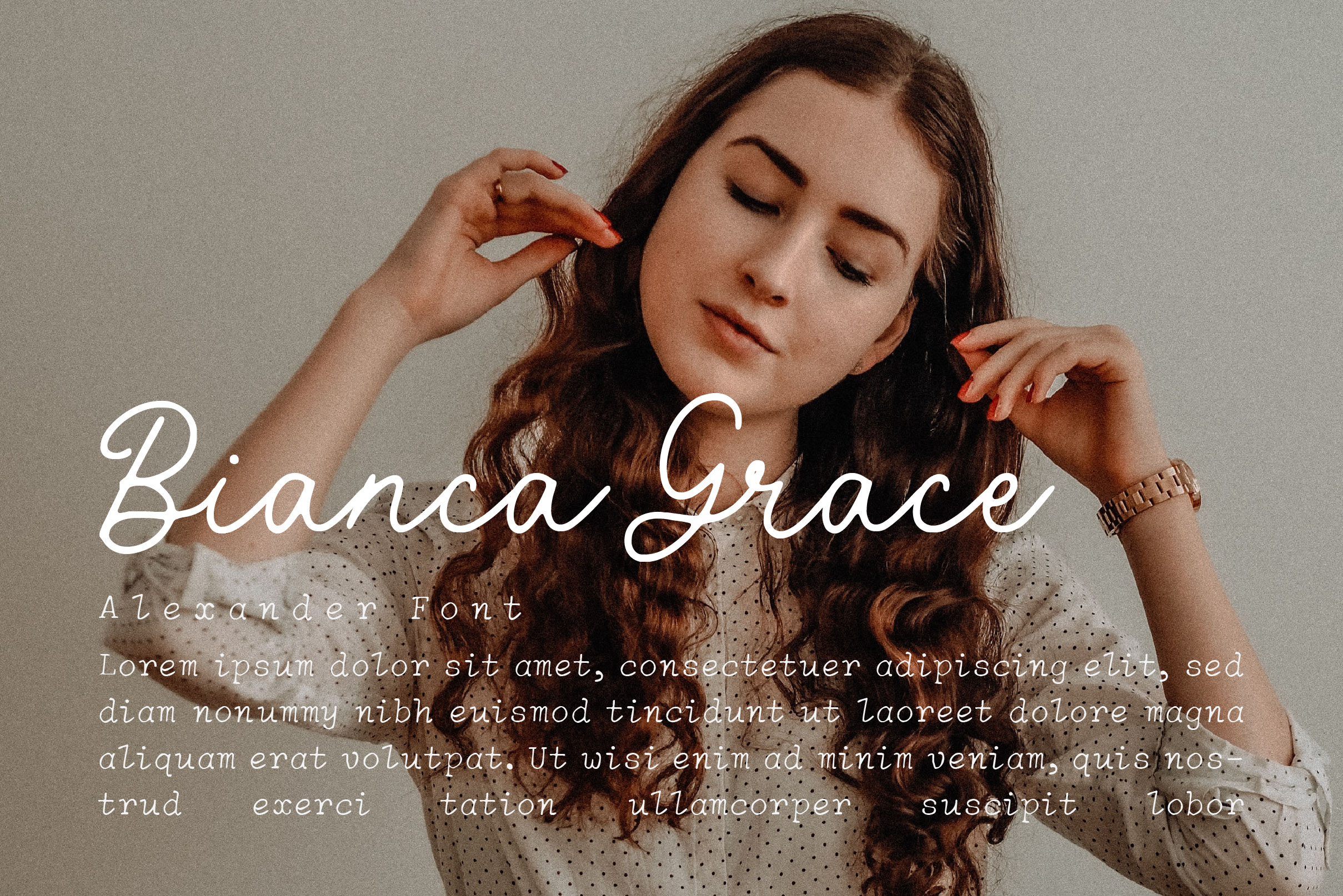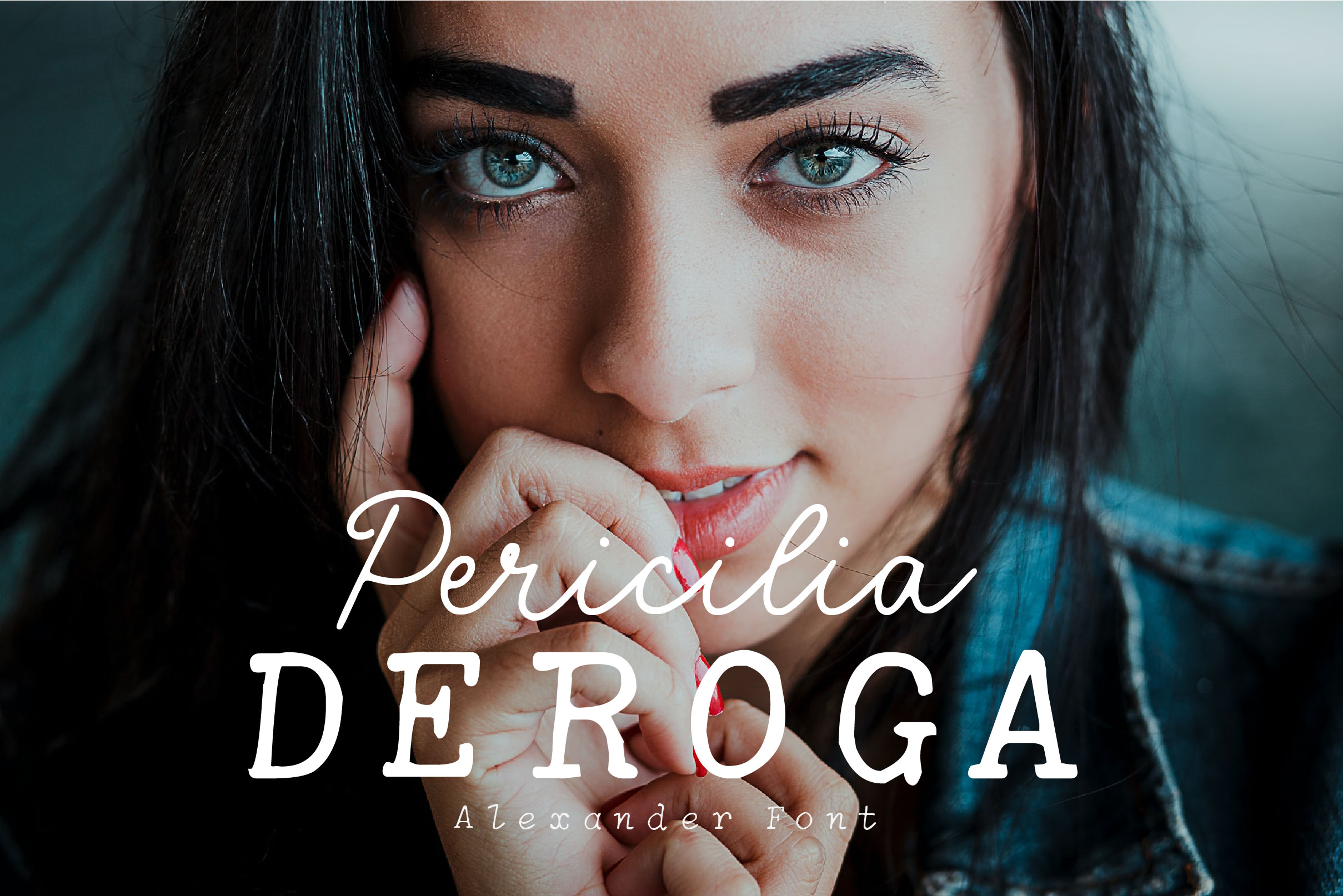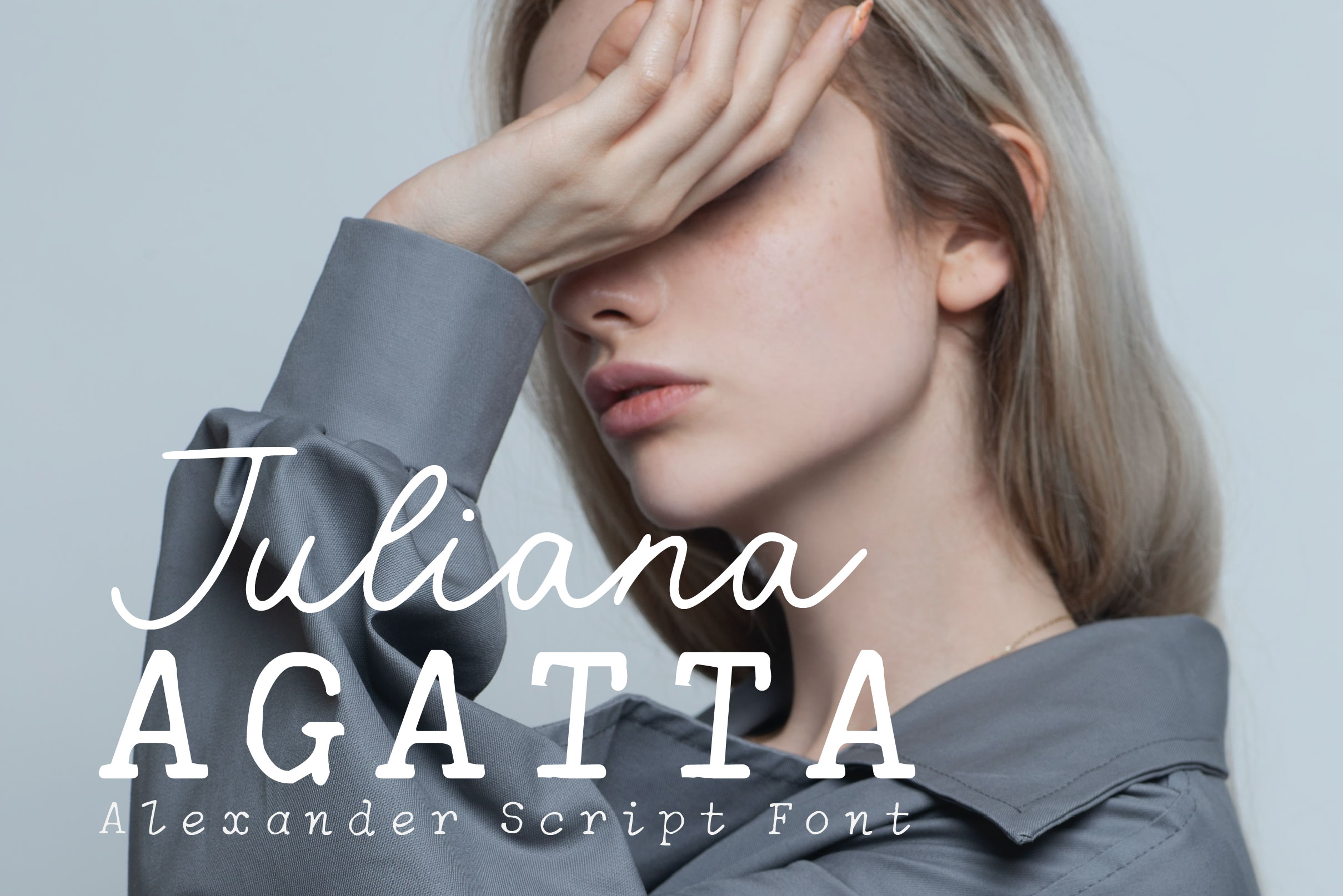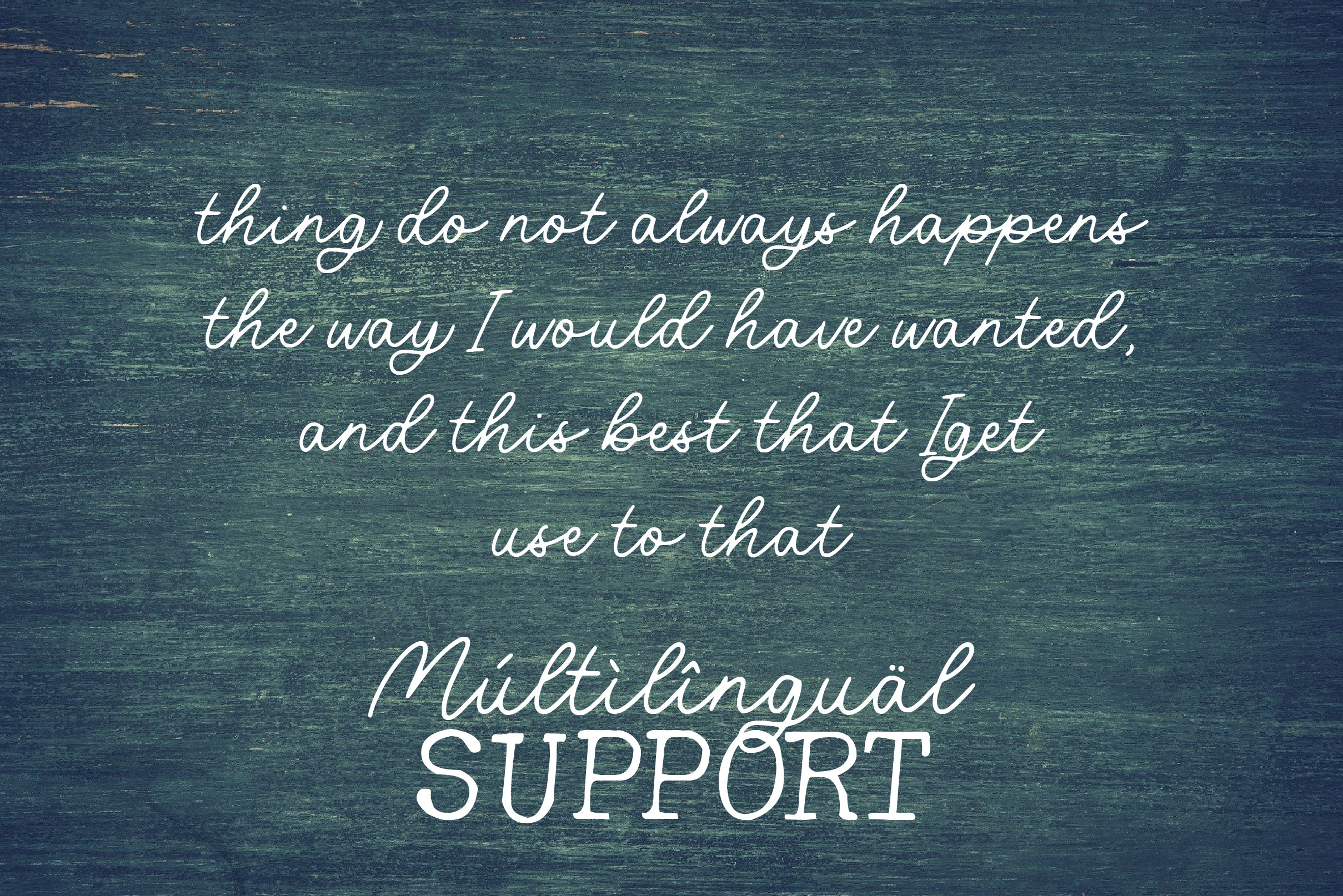
Alexander Typeface
Alexander Handwritten Typeface is a lovely and timeless handwritten font. It is the best choice for creating eye-catching logos, branding, and quotes.
– Uppercase, Lowercase, Numeral & Punctuation
– Alternate Letters, Ligature & Swash/Tail
– Multilingual & PUA Encoded